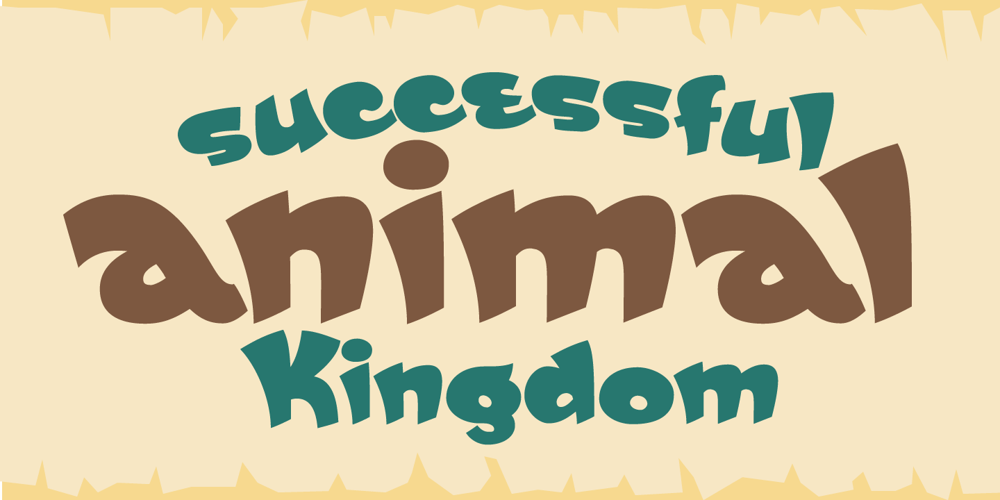
FunFont Font Family was designed by published by John Moore Type Foundry. FunFont contains 4 styles and family package options. Funfont is a sans serif fantasy font with funny spirit designed to recreate an style of good humor. FunFont comes in three styles: Normal, Outline and Shade.